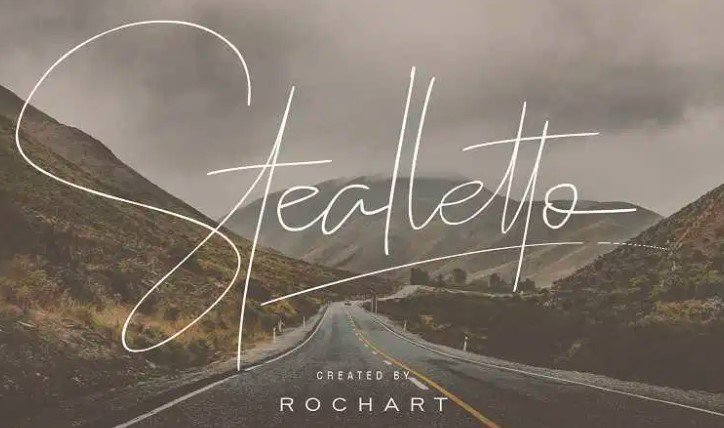
If you enjoy using signature fonts in your designs, you’ll be pleased to know that we’re featuring a signature and scripted typeface today: Stealletto Font. This wonderful font, rich with amazing features, was created and shared by Rochat.
It has brilliant thin scripted features that have some good-looking, charming, and delightful features which you will be used as a pairing. it is great to work with the combination of cormorant font.
You can check out its modernity, superiority, and high-quality texture designs in the below image. The typeface has all the perfect things that you are enough for your work.
This is the best attractive signature typeface for developing such a rich design that is full of beauty and awesomeness. It contains the perfect look which you are able to see in the below image.